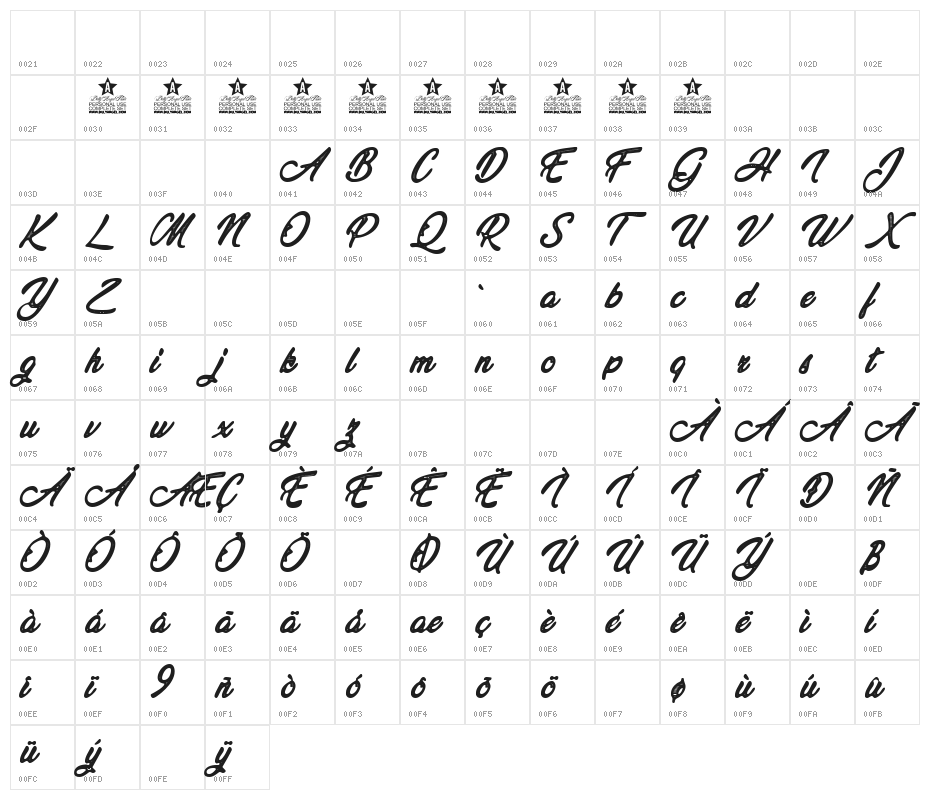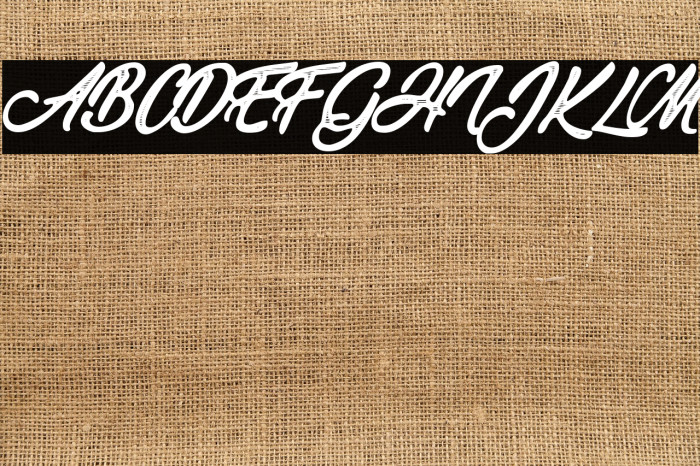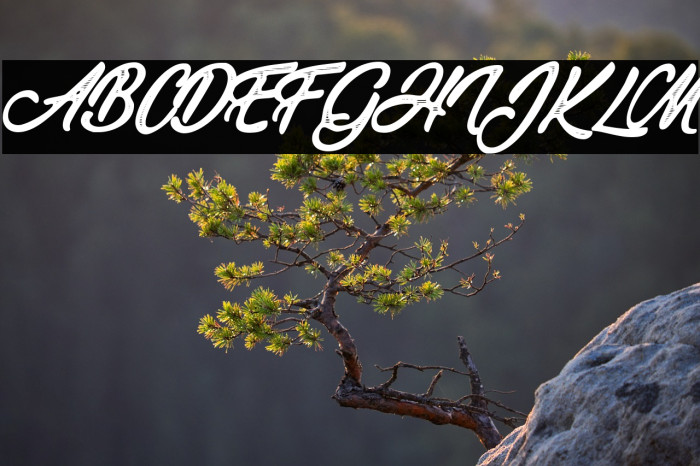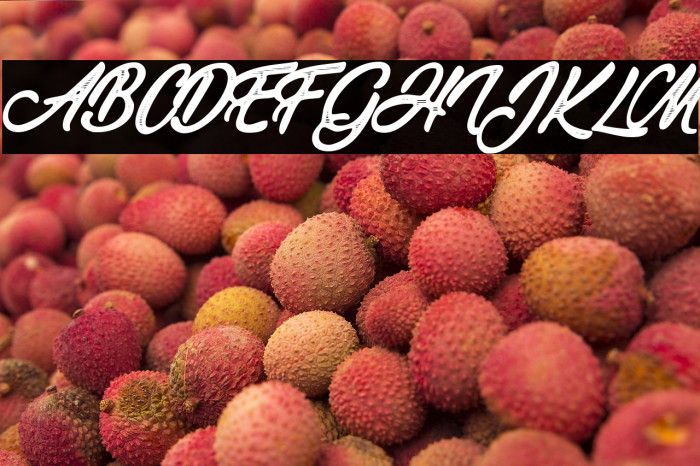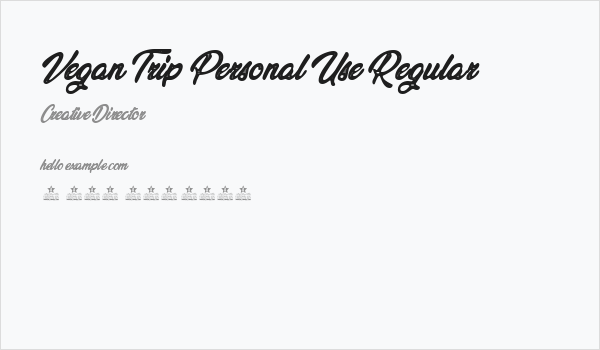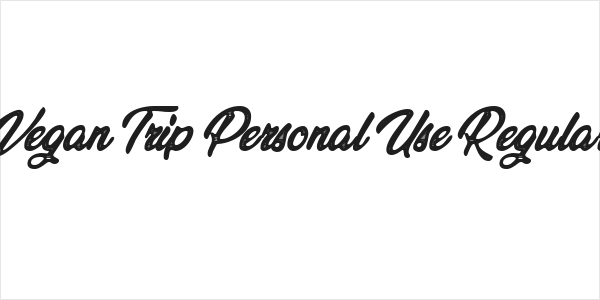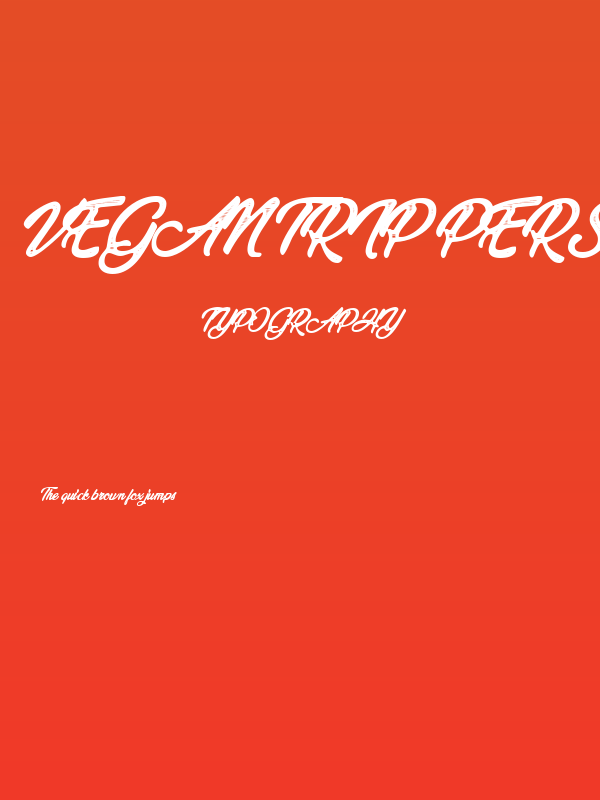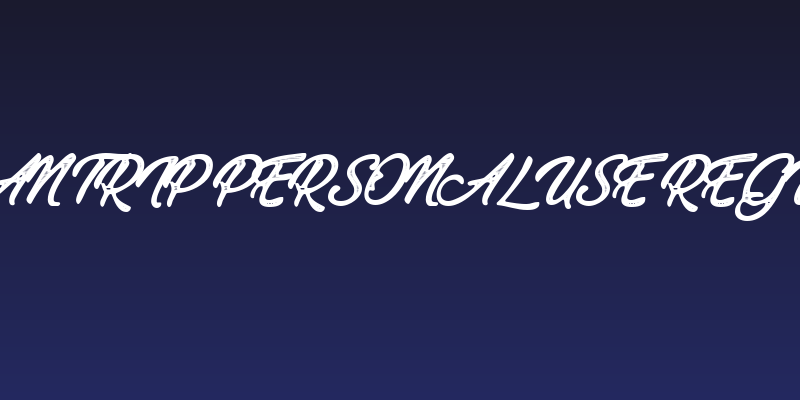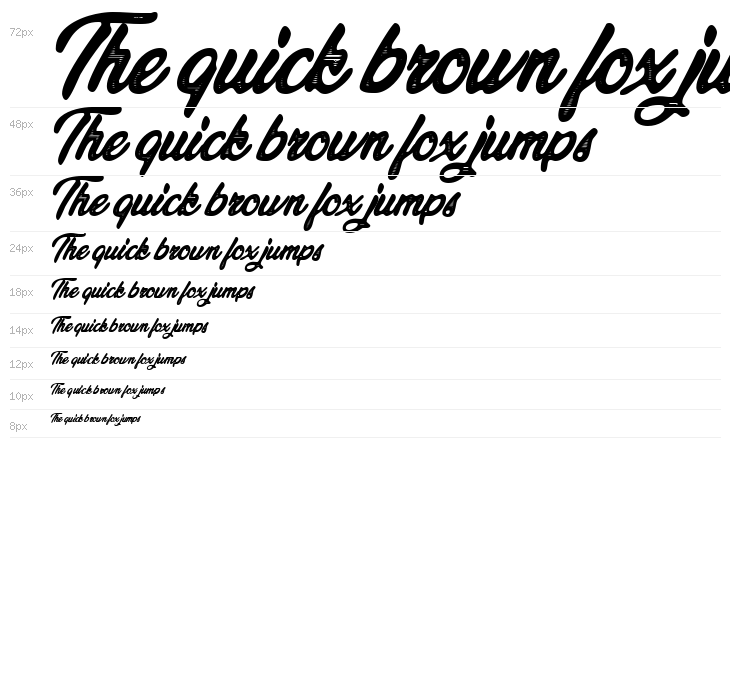
Vegan Trip Personal Use Regular Font
Vegan Trip Personal Use Regular Description
This font features a bold, cursive style with a modern flair. The letters are interconnected, creating a fluid and dynamic appearance. Each character is crafted with a consistent stroke width, giving the font a uniform look. The uppercase letters are slightly larger and more pronounced, while the lowercase letters maintain a smooth, flowing form. The font includes a full set of uppercase and lowercase letters, numbers, and a selection of special characters. Its boldness and script-like quality make it suitable for creative and expressive designs.
| Use Case | Logos, Invitations, Creative Design |
| Proposed Projects | Ideal for branding, logos, invitations, and creative design projects that require a personal touch. |